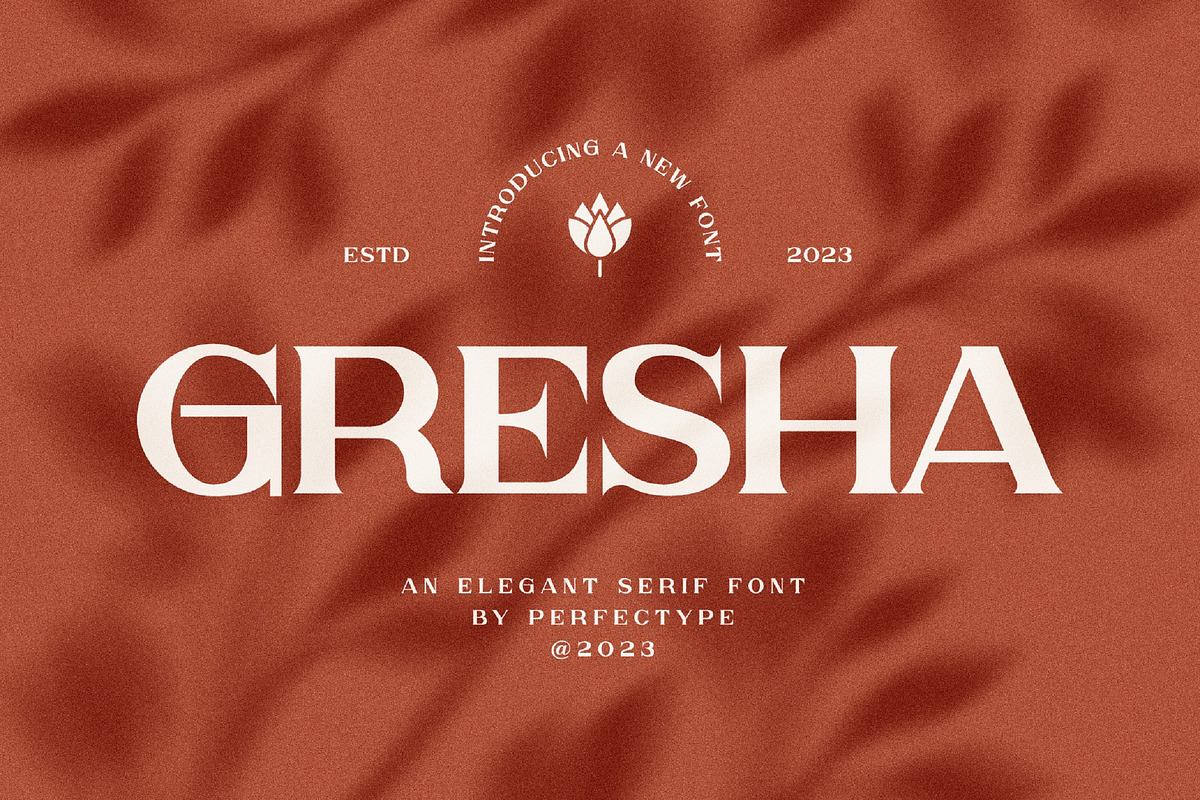
Gresha – Elegant Serif Font Typeface is perfect for luxury brand identities, sophisticated editorial layouts, premium business communications, elegant wedding invitations, high-end fashion magazines, refined book covers, upscale restaurant branding, distinguished logo design, cultural institution materials, exclusive packaging design, prestigious corporate presentations, and sophisticated typography applications.
Gresha – Elegant Serif Font Typeface is exciting because it embodies timeless sophistication and refined elegance through its masterfully crafted serif letterforms that demonstrate the perfect balance between classical typography heritage and contemporary design sensibilities. This distinguished typeface features graceful proportions with exquisite serif details that create an atmosphere of luxury, intelligence, and cultural refinement. The font's elegant character elevates every application with understated sophistication and professional polish that speaks to discerning audiences who appreciate quality, tradition, and the enduring beauty of fine typography.
Gresha – Elegant Serif Font Typeface includes comprehensive font families: Regular Elegant Style, Bold Sophisticated Weight, Light Graceful Touch, Medium Refined Balance, Italic Flowing Slant, Condensed Luxury Format, Extended Prestigious Width, Ultra Light Version, Black Authoritative Style, and Special Elegant Symbols, providing complete solutions for sophisticated typography needs and luxury brand communications that demand classical elegance and contemporary functionality.
This distinguished typography solution transforms standard communications into elegant experiences through its refined serif aesthetic and sophisticated design principles. Gresha – Elegant Serif Font Typeface Free Download enables designers and luxury brands to access premium elegant typography that instantly adds sophistication, cultural refinement, and timeless appeal to any creative project. The font's meticulously crafted proportions ensure exceptional readability while maintaining distinctive elegant character and classical beauty.
Luxury brands, cultural institutions, and sophisticated businesses trust Gresha – Elegant Serif Font Typeface for its ability to communicate refinement, quality, and cultural sophistication to discerning audiences who appreciate elegant design and premium brand experiences. The typeface's graceful construction performs beautifully across various applications, from intimate luxury communications to large-scale prestigious branding campaigns. Its extensive character support includes multilingual capabilities and elegant design elements that enhance sophisticated brand presentations.
The design philosophy behind Gresha – Elegant Serif Font Typeface celebrates the enduring appeal of classical serif typography while embracing contemporary design requirements, creating letterforms that honor tradition while serving modern communication needs. This elegance-focused approach creates a font that feels genuinely sophisticated while maintaining contemporary relevance across different luxury contexts and refined brand expressions.
Whether creating luxury brand identities, sophisticated editorial materials, or elegant marketing campaigns, this serif typeface delivers exceptional results that embody classical elegance and refined sophistication. Download Gresha – Elegant Serif Font Typeface today and discover how premium elegant typography can transform your design projects into sophisticated expressions of cultural refinement, timeless beauty, and the distinguished elegance that defines the most prestigious and respected brand communications.